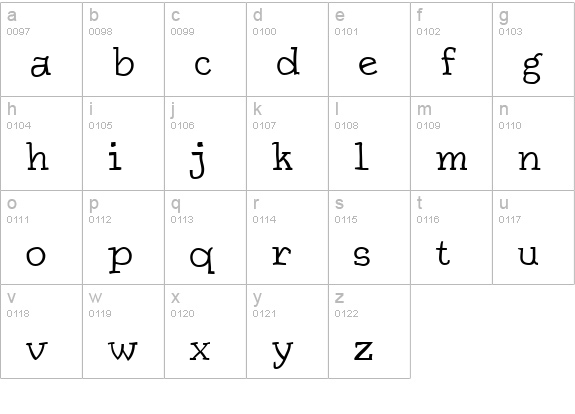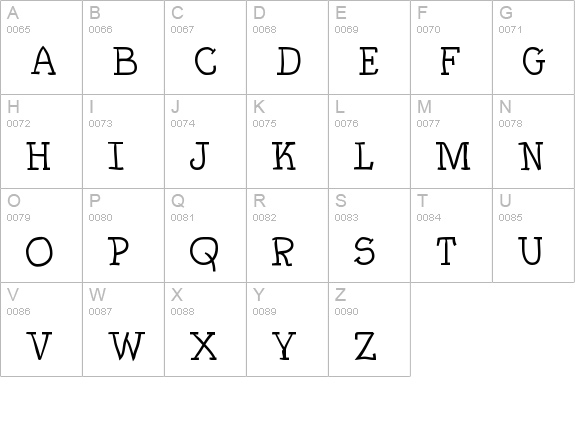
SarahfSlob Font Details
SarahfSlob is a delightful and playful font that will add a touch of whimsy to any project. Its quirky and irregular letterforms give it a unique and hand-drawn look, making it perfect for everything from children's books to greeting cards and logo designs. This free font, available for download at FontsMarket.com, offers a wide range of characters, including uppercase and lowercase letters, numbers, and punctuation marks. The irregular strokes and uneven spacing give each letter a charming imperfection, adding personality and character to your designs. Whether you're looking to create a fun and lighthearted design or want to add a touch of playfulness to your branding, SarahfSlob is the perfect choice. Its versatility and creativity make it ideal for a variety of applications, from digital designs to print materials. The freedom to download this font for free from FontsMarket.com allows designers and creatives to easily access this unique and eye-catching typeface. With SarahfSlob, you can effortlessly bring your ideas to life and make a lasting impression. So why wait? Download SarahfSlob today and unleash your creativity with this freely available font. Let your imagination run wild and watch as your designs come to life with this charming and whimsical typeface.